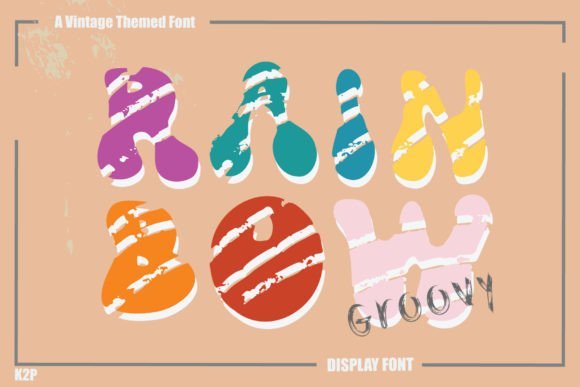
Unlock the Groovy Rainbow Font: Add a Splash of Retro Fun to Your Designs
Remember the moment when a burst of creativity strikes, and you can’t wait to dive into your next design project? It’s that feeling of freedom and excitement that makes us designers thrive. For me, it was the day I stumbled upon the Groovy Rainbow Font – a font that transported me straight back to the groovy 70s. Its whimsical charm and retro vibe instantly sparked a thousand ideas, and I knew I had to share it with the world.
So, what makes the Groovy Rainbow Font so special? This fun, display font is perfect for adding a touch of nostalgia and playfulness to your designs. Whether you’re creating a poster, a logo, or a social media graphic, the Groovy Rainbow Font is sure to bring a smile to your audience’s face. And, as a designer, you know how valuable it is to have a versatile font that can elevate your work and make it stand out from the crowd.
Groovy Rainbow Font Key Features
- Unique Characteristics: The Groovy Rainbow Font features a dynamic, multi-colored design with a mix of bold and cursive elements, making it ideal for creative and playful projects
- Color Options: The font includes a range of color options, allowing designers to customize the font to match their brand or project’s color scheme
Groovy Rainbow Font Review
Overall, I think the Groovy Rainbow Font is a fun and playful addition to any design project. ✨ It’s perfect for creating eye-catching headlines or adding a pop of color to your text. The font is highly customizable, allowing you to adjust the color palette, size, and style to fit your needs.
One of the standout features of this font is its versatility. ✨ It can be used in a variety of contexts, from social media graphics to website headers. It’s also a great choice for creating a fun and energetic vibe, making it perfect for marketing campaigns or promotional materials.
While the Groovy Rainbow Font is a great choice for many projects, it may not be the best fit for every situation. ⚠️ Here are a few limitations to consider:
- Legibility: In certain situations, the font may be difficult to read due to its bold and colorful nature.
- Overuse: Using the font too frequently can make your design look cluttered and overwhelming.
- Professional tone: The font’s playful nature may not be suitable for formal or professional projects.
Overall, I think the Groovy Rainbow Font is a great choice for designers who want to add a fun and playful touch to their projects. While it may not be the best fit for every situation, it’s a versatile and highly customizable font that can be used in a variety of contexts.
Use the Groovy Rainbow Font to add a playful and creative touch to your designs. Some common use cases include:
- Children’s books and educational materials
- Marketing materials and social media graphics
Remember to experiment with different font sizes, colors, and styles to get the most out of the Groovy Rainbow Font.
Alternatives to Groovy Rainbow Font
Comic Sans MS is a playful, cursive font that is often used for informal or creative projects. It is a classic alternative to Groovy Rainbow Font, but its more generic feel makes it less suitable for high-end or professional designs. When to use: Blogs, social media, or any project where a casual tone is desired.
Great Vibes is a modern, handwritten font that offers a more sophisticated take on the playful, cursive style of Groovy Rainbow Font. It is perfect for designs where a touch of elegance and whimsy is needed. When to use: Magazine covers, advertisements, or any project where a high-end feel is desired.